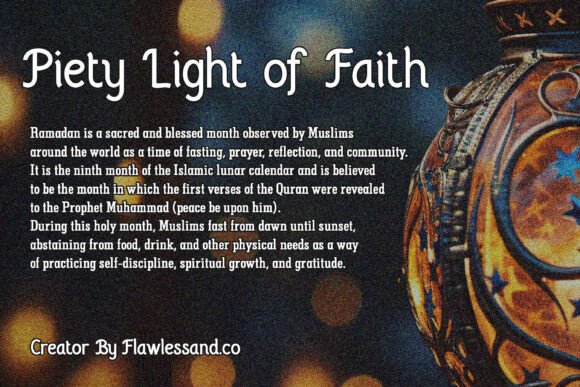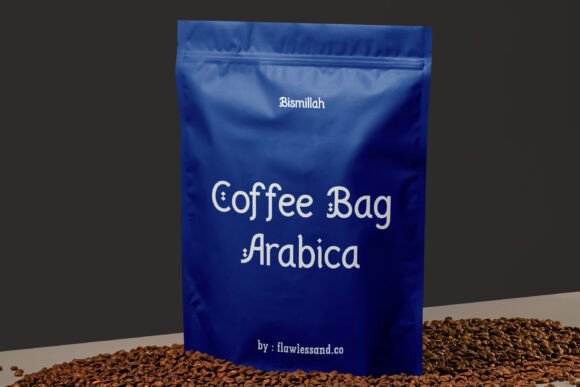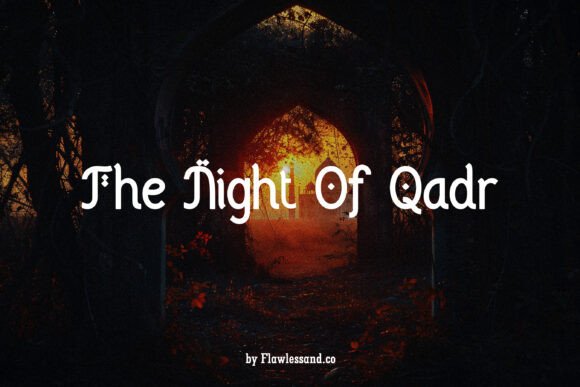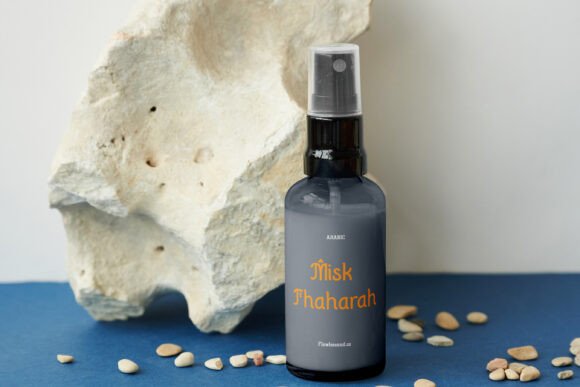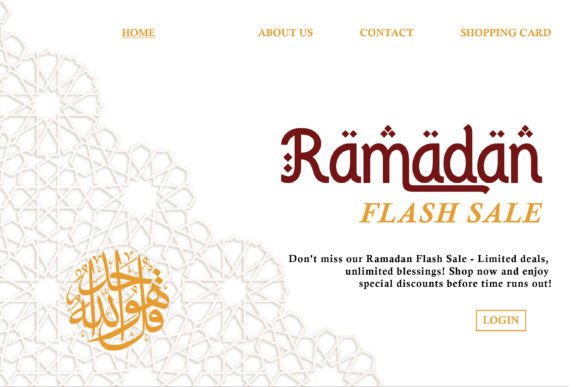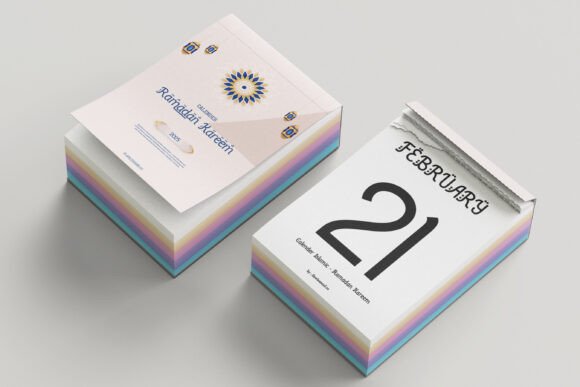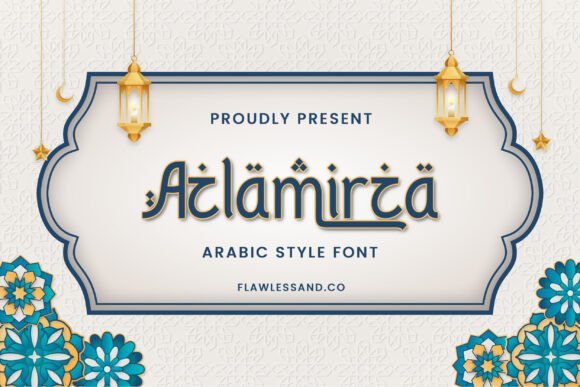
The Magic of Azlamirza Font: Elevating Your Designs with Arabic Elegance
I’ll never forget the time I was working on a Ramadan design project for a client, and I was struggling to find the perfect font that captured the essence of the holy month. The client wanted something that was both traditional and modern, elegant and authentic. After hours of scouring the internet, I stumbled upon the Azlamirza font, and it was love at first sight! ✨
Azlamirza is an Arabic-style font that seamlessly blends traditional Middle Eastern aesthetics with a modern touch. Its elegant curves and cultural essence make it suitable for a wide range of creative projects, from Ramadan designs and Islamic event posters to restaurant branding, packaging, invitations, and social media content.
- ✅ Elegant and sophisticated design that adds an authentic Arabic feel to any project
- ✅ Wide range of OpenType features, glyphs, and stylistic alternates to experiment with
- ✅ Perfect for designs that require a touch of cultural elegance and sophistication
The Not-So-Good: ⚠️
- 🤔 Limited language support, primarily designed for Arabic and other right-to-left languages
- ⚠️ May require some experimentation to get the hang of using OpenType features and glyphs
The Story Behind Azlamirza
Azlamirza was designed by a team of typographers who wanted to create a font that captured the essence of Arabic culture and tradition. The font was inspired by the beautiful calligraphy of the Middle East, with its elegant curves and intricate patterns. The designers aimed to create a font that was both modern and authentic, perfect for designs that require a touch of cultural elegance.
| Author | Flawless And Co |
Q: What languages does Azlamirza support?
A: Azlamirza primarily supports Arabic and other right-to-left languages.
Q: Is Azlamirza suitable for body text?
A: Azlamirza is primarily designed for display text, but it can be used for body text in certain contexts, such as in designs that require a touch of elegance and sophistication.